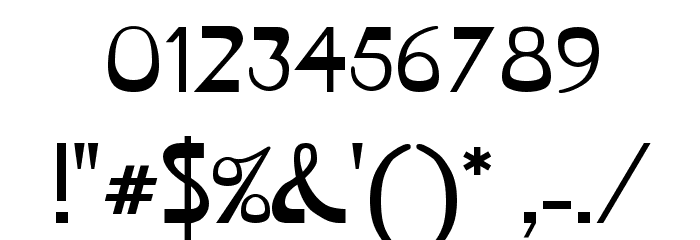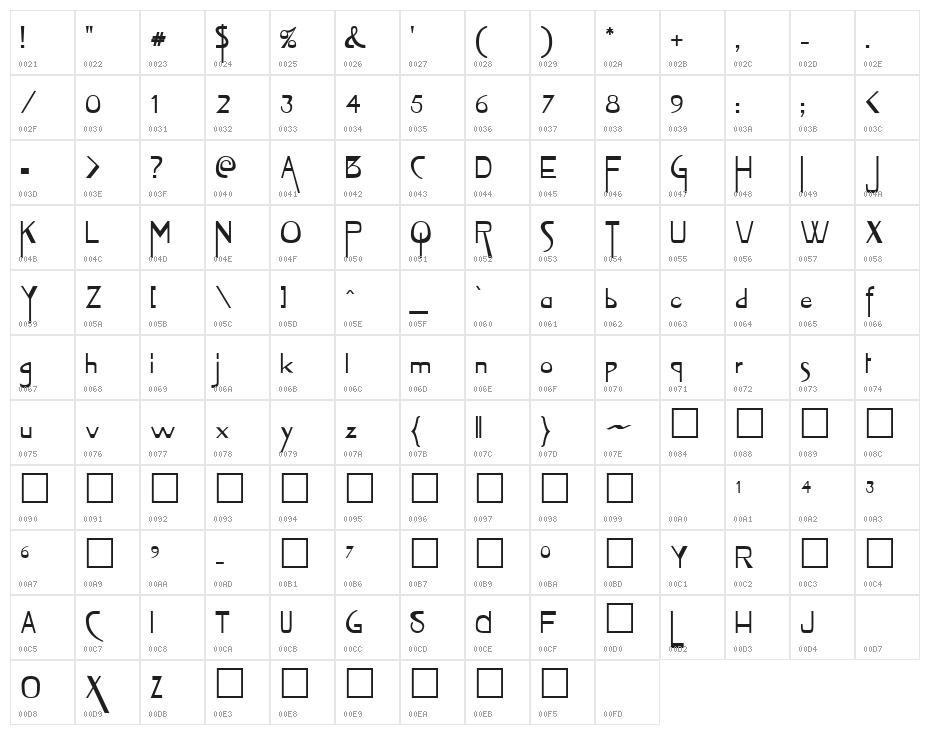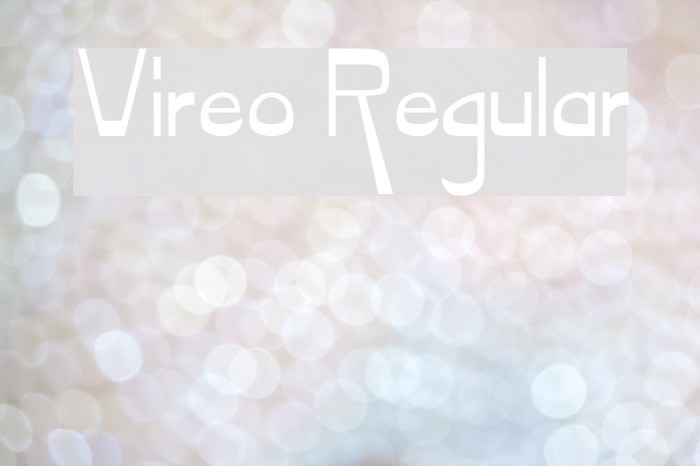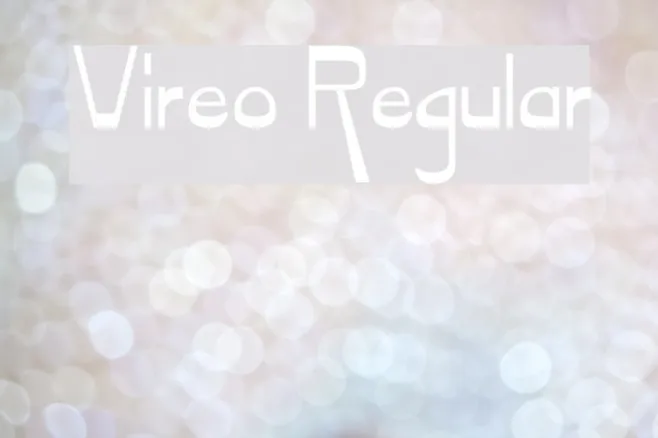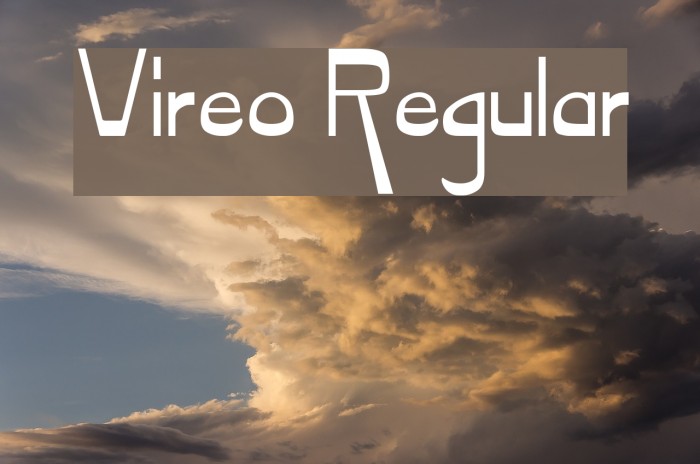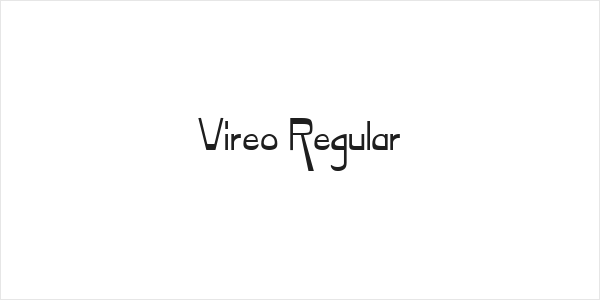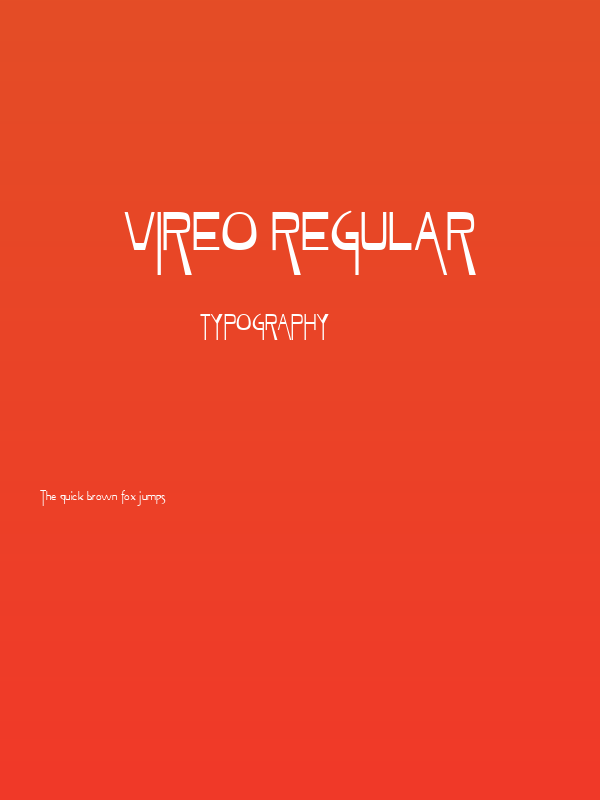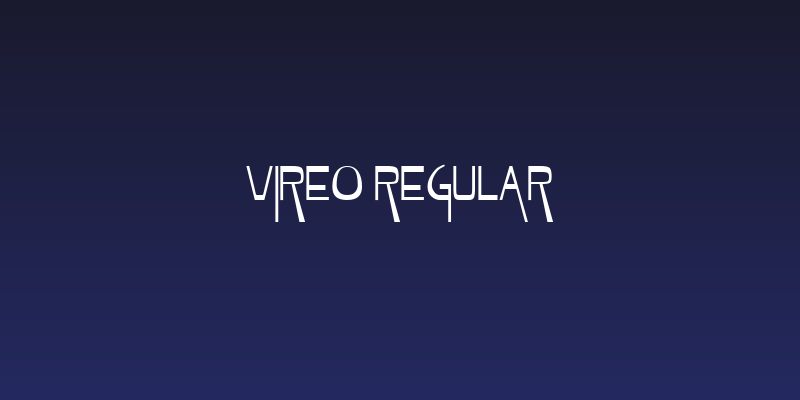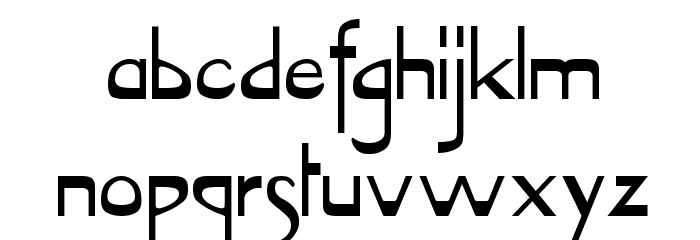
Vireo Regular Font
Vireo Regular Description
This font features a unique and modern design with a geometric flair. The uppercase letters are characterized by sharp angles and elongated verticals, giving them a striking appearance. The lowercase letters maintain a similar style, with a consistent stroke width that adds to the font's clean and contemporary look. The numerals are bold and easily readable, while the special characters complement the overall aesthetic with their distinct shapes. This font's design is both artistic and functional, making it suitable for a variety of creative applications.
| Proposed Projects | Ideal for branding, posters, and modern web design projects. |